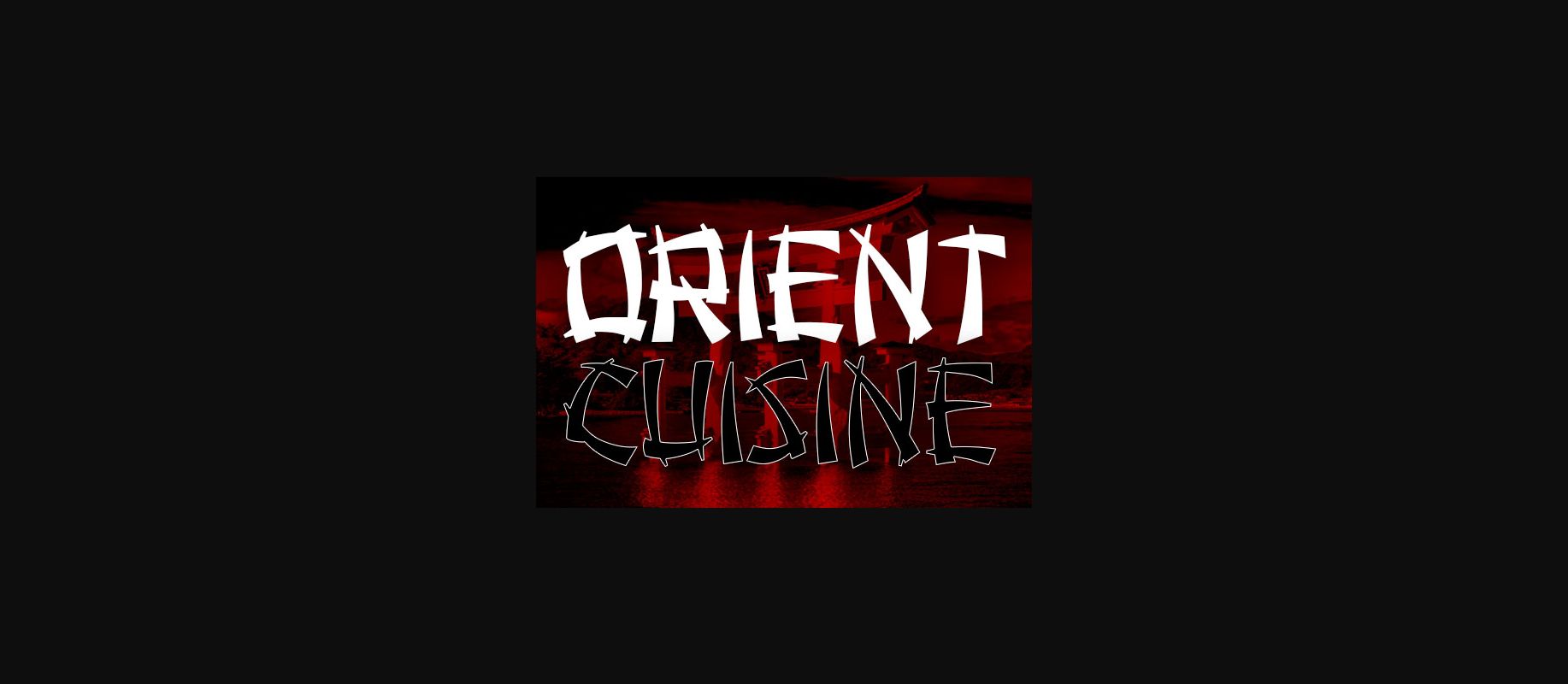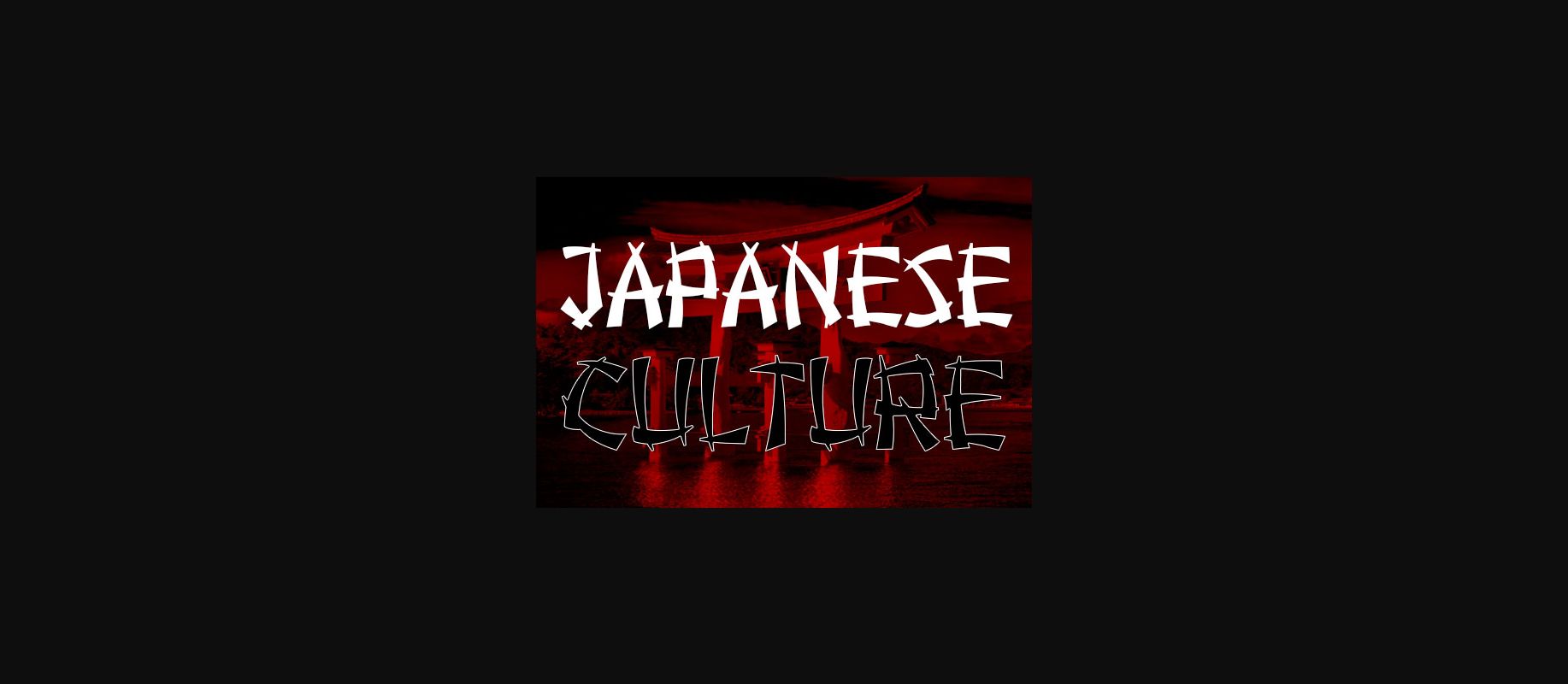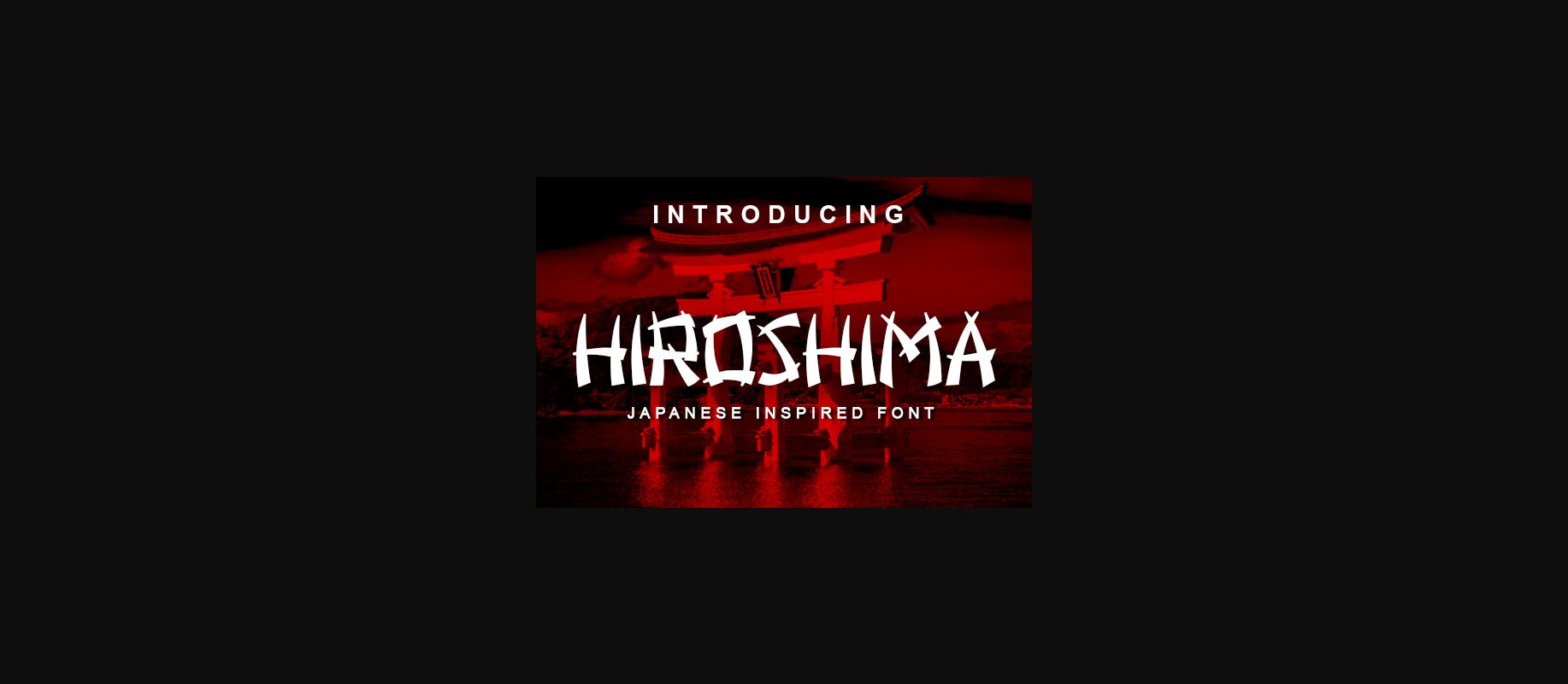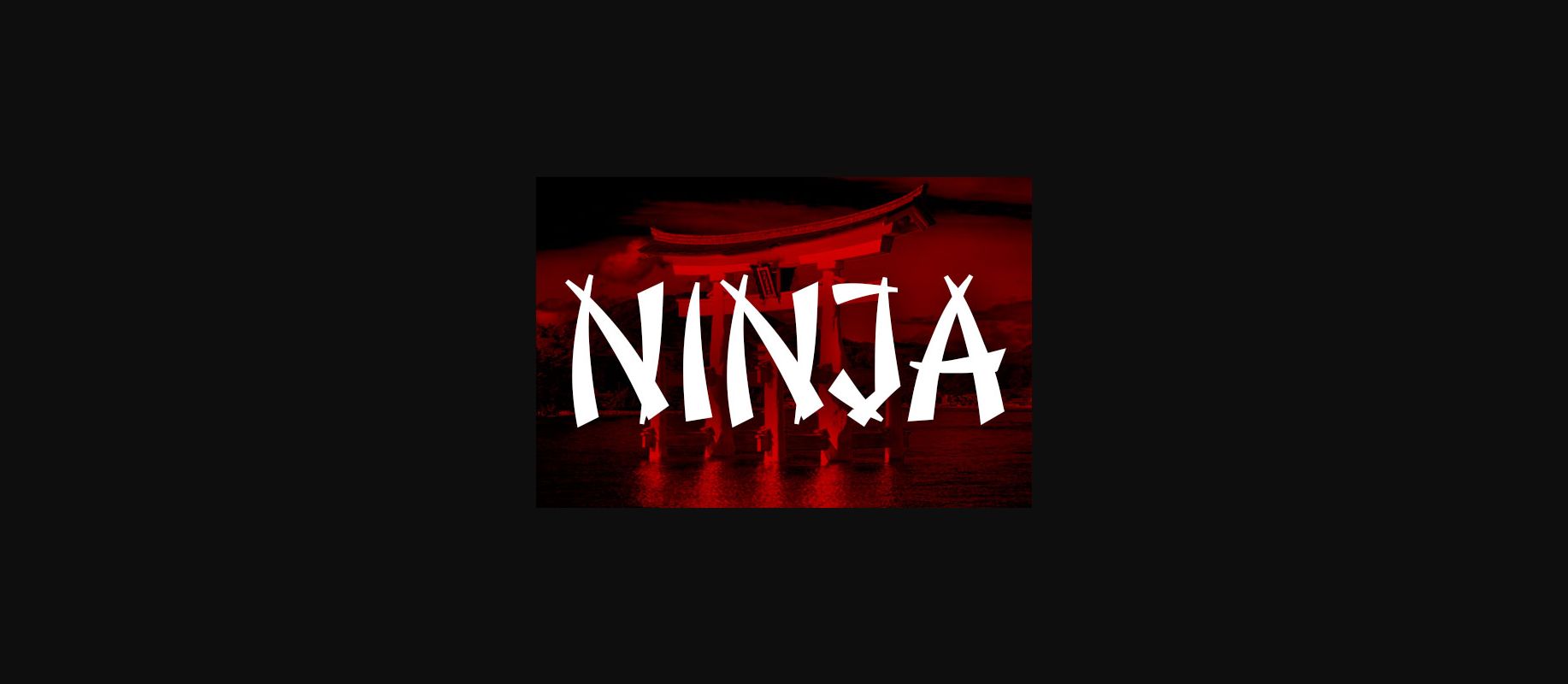
Hiroshima Font
About Hiroshima Font
Hiroshima is an awesome Japanese-inspired font. It has great readability and will add a striking touch to any design! It will look perfect on any poster, banner, flyer, t-shirt, or print.